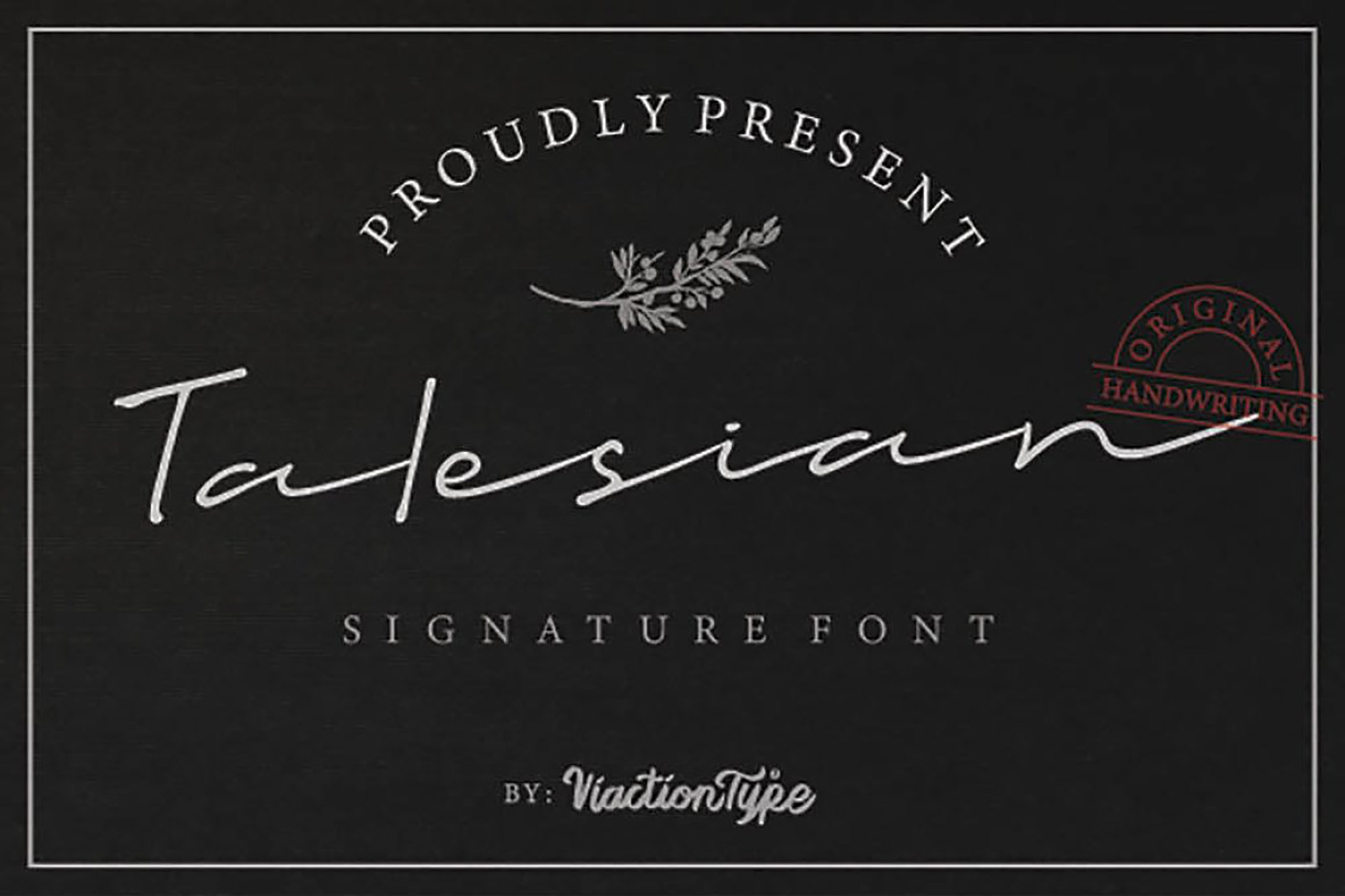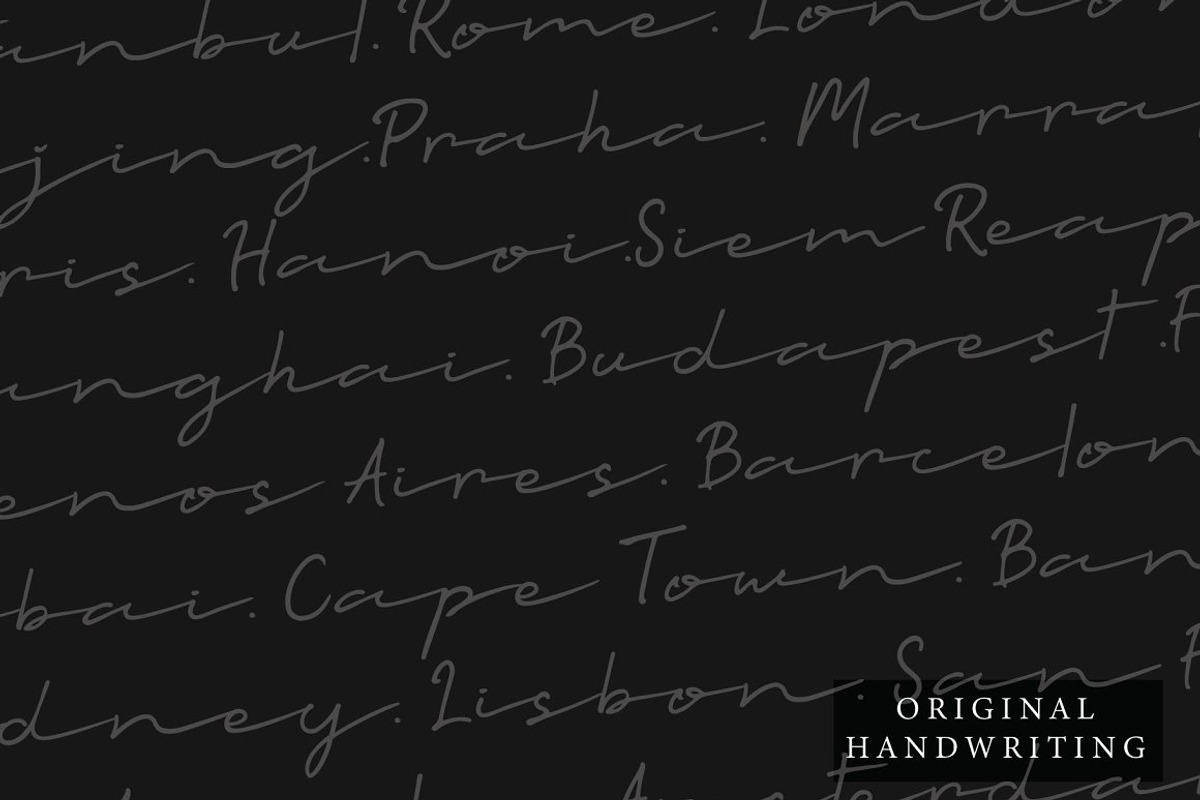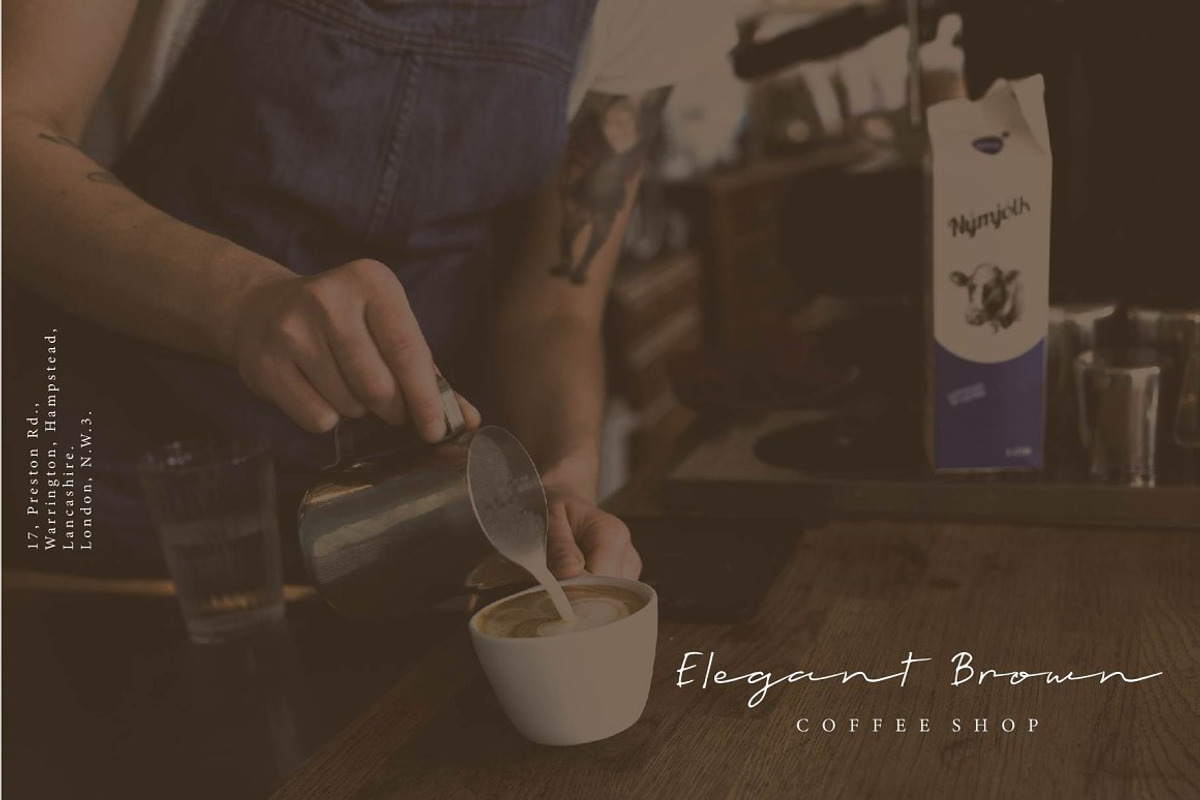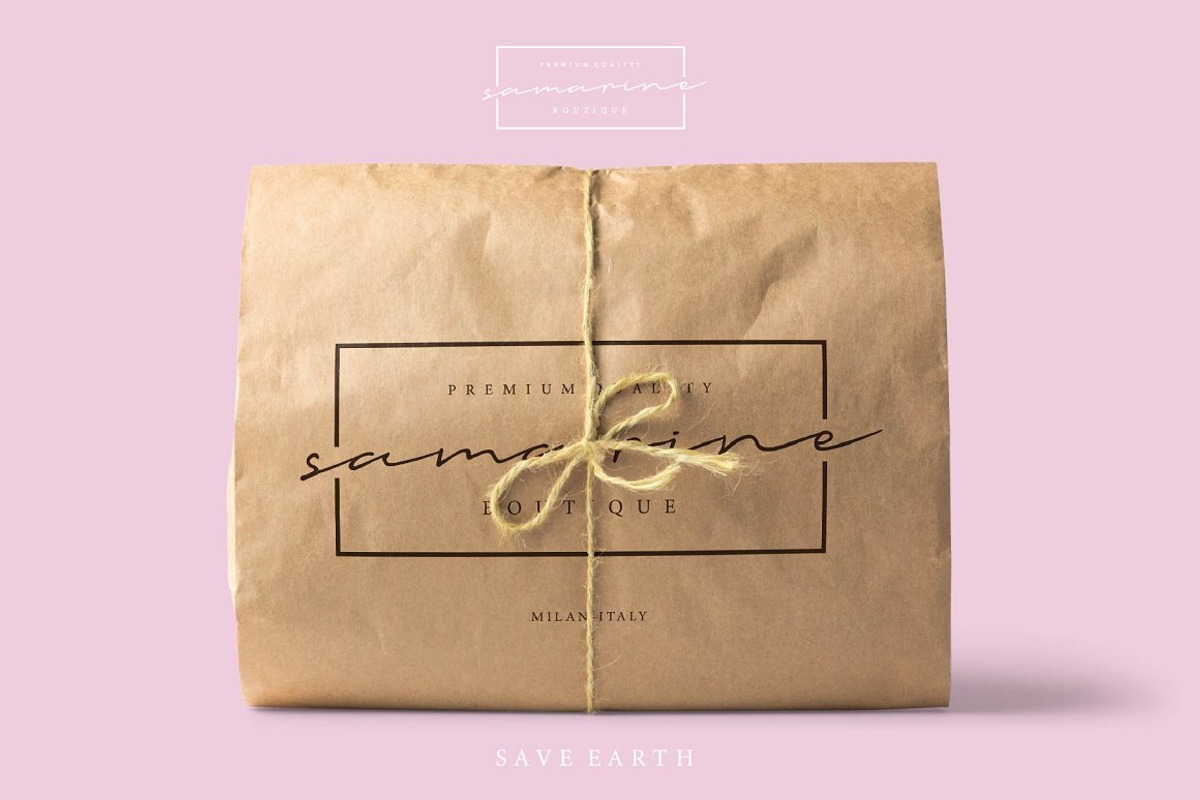
Talesian - Signature Font
Talesian Signature font with original handwriting style, looks very natural and beautiful. It is suitable for boutique brand, photography, magazine, quote, business card, logo, poster and many more. There are two types of fonts: regular and bold, script is equipped with opentype features such as ligature, and multilingual support.